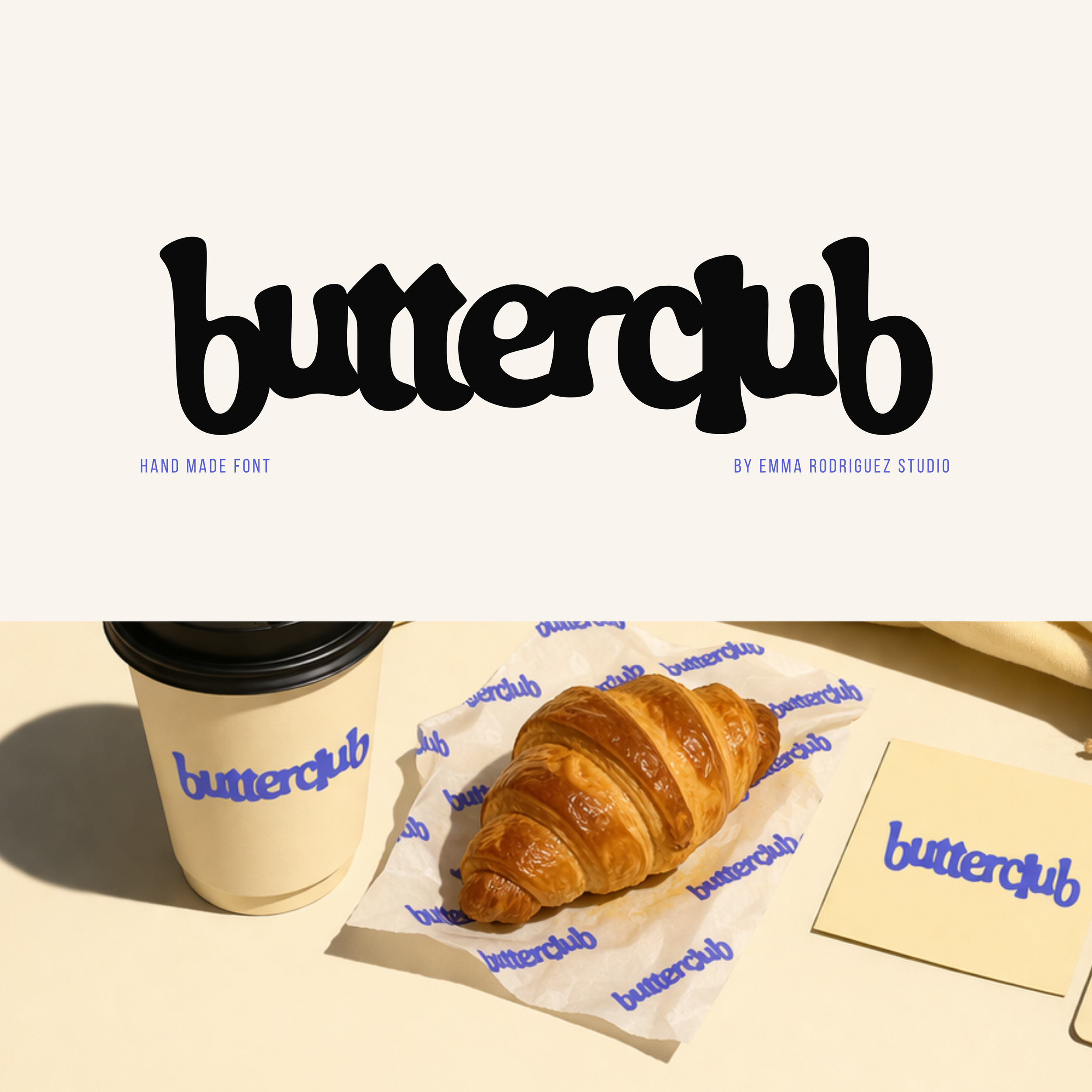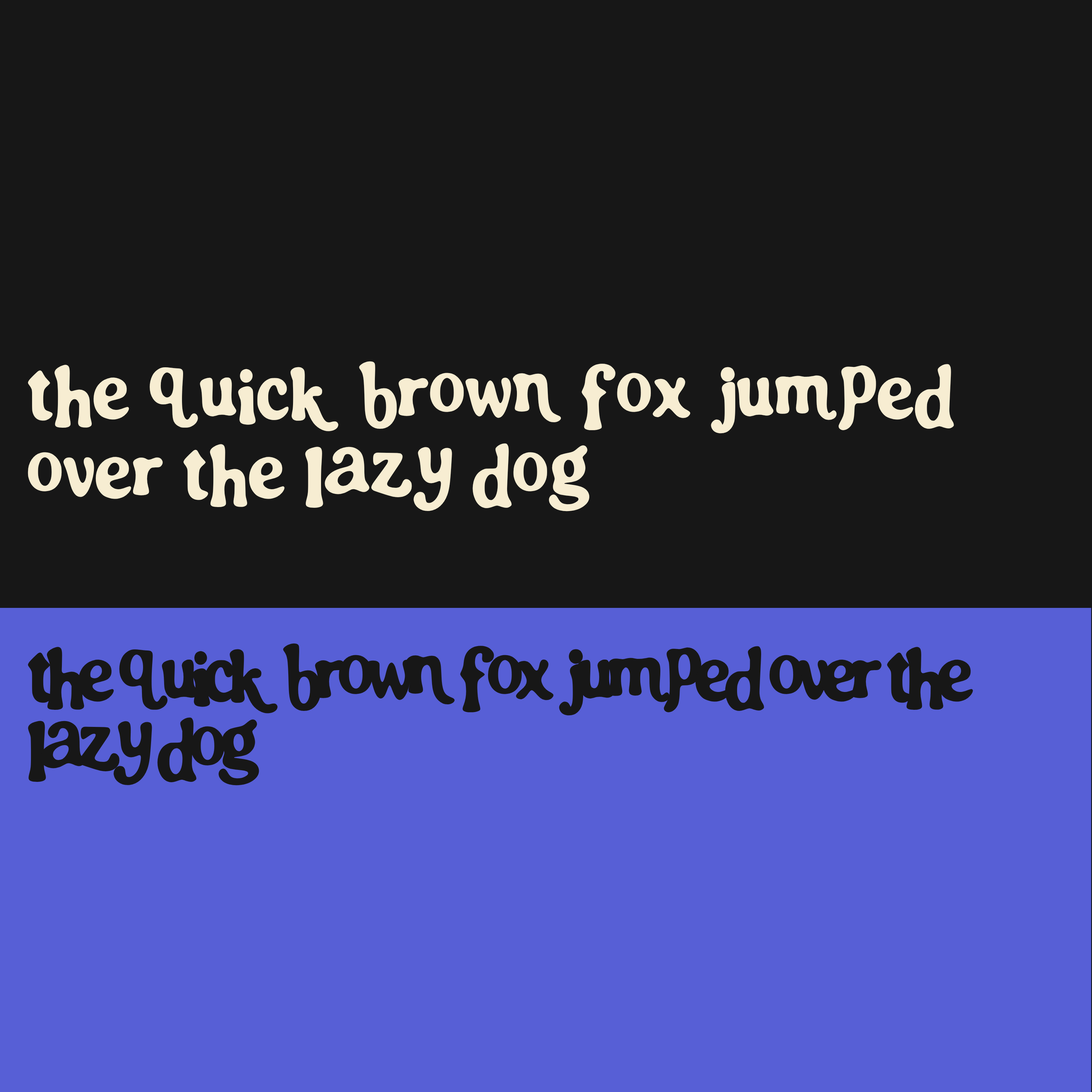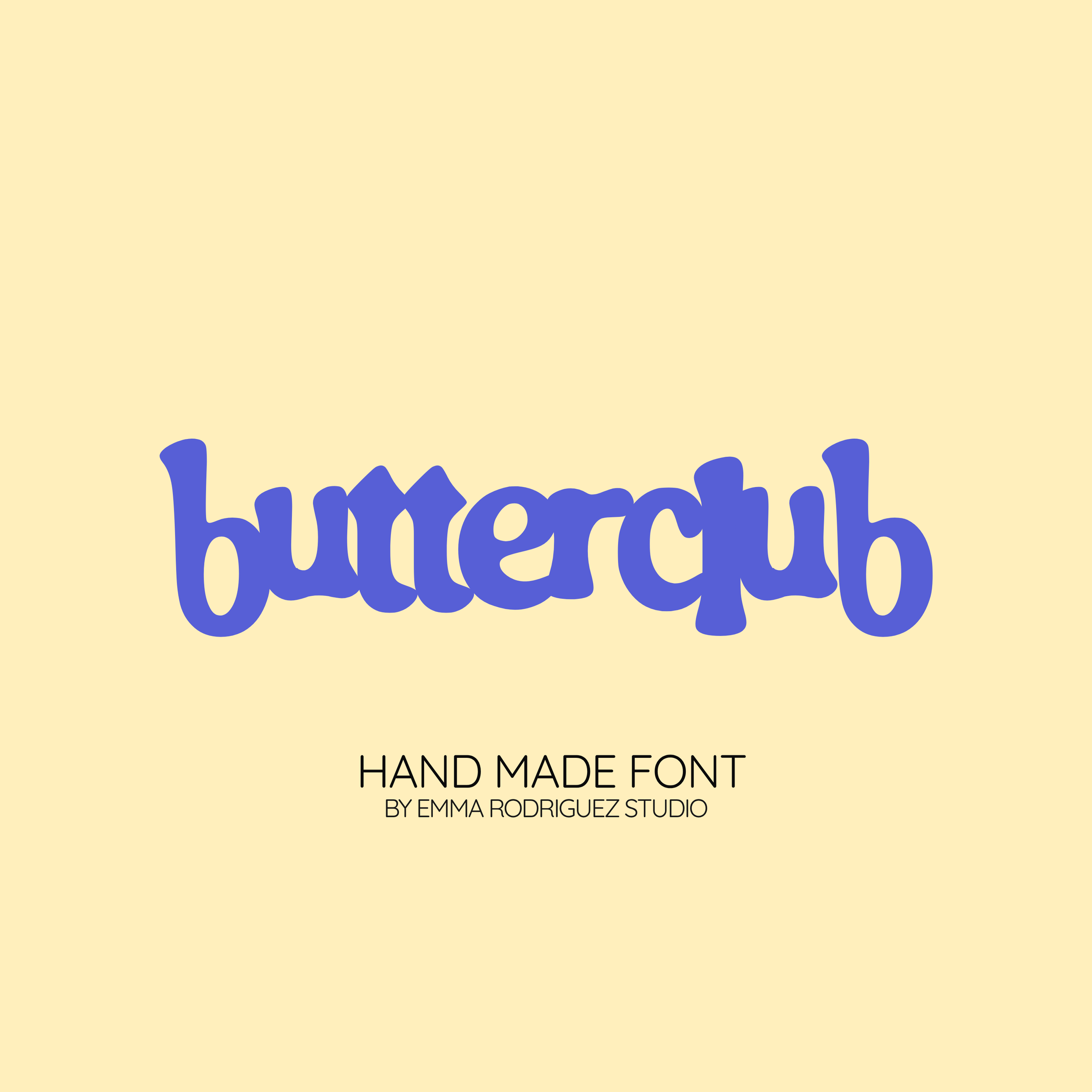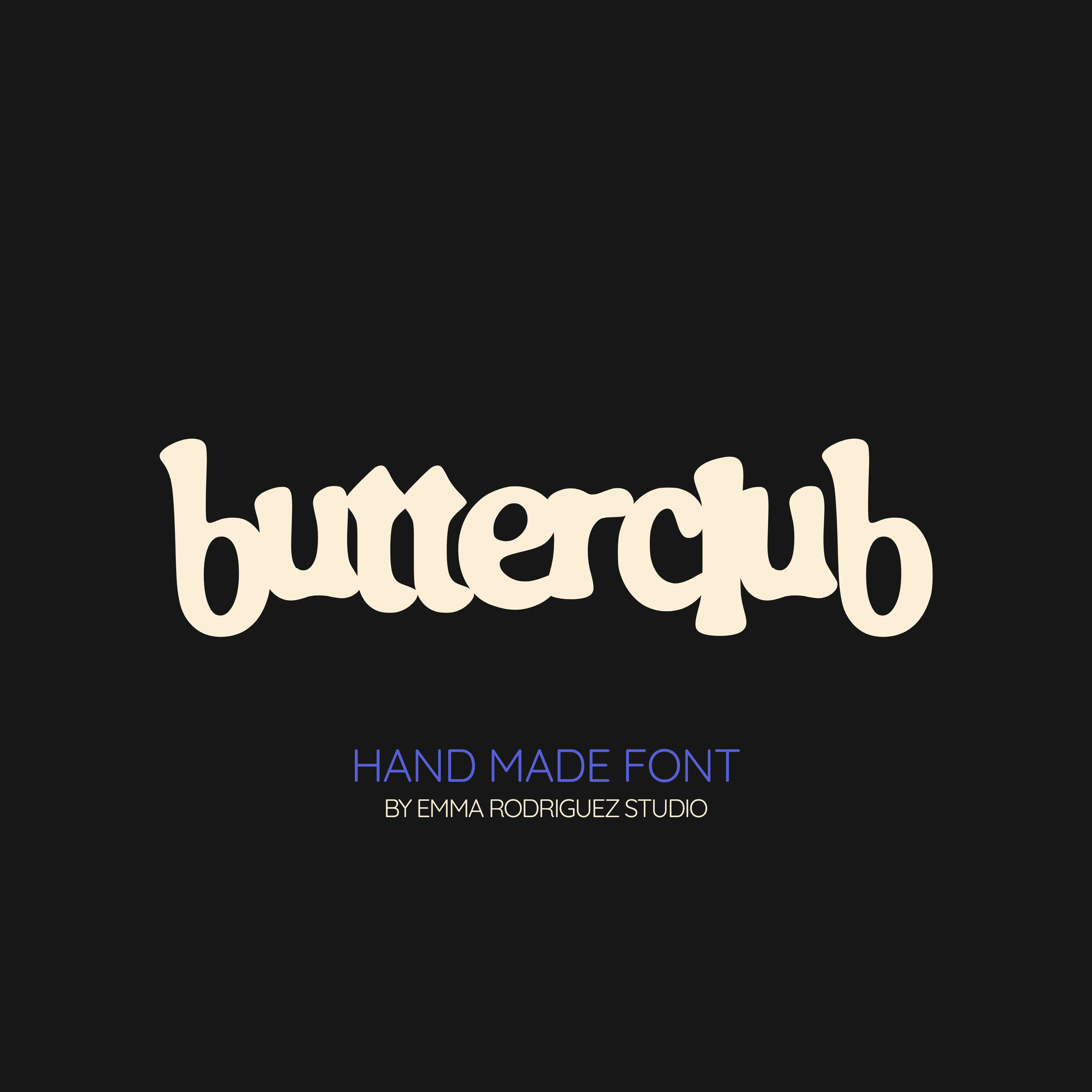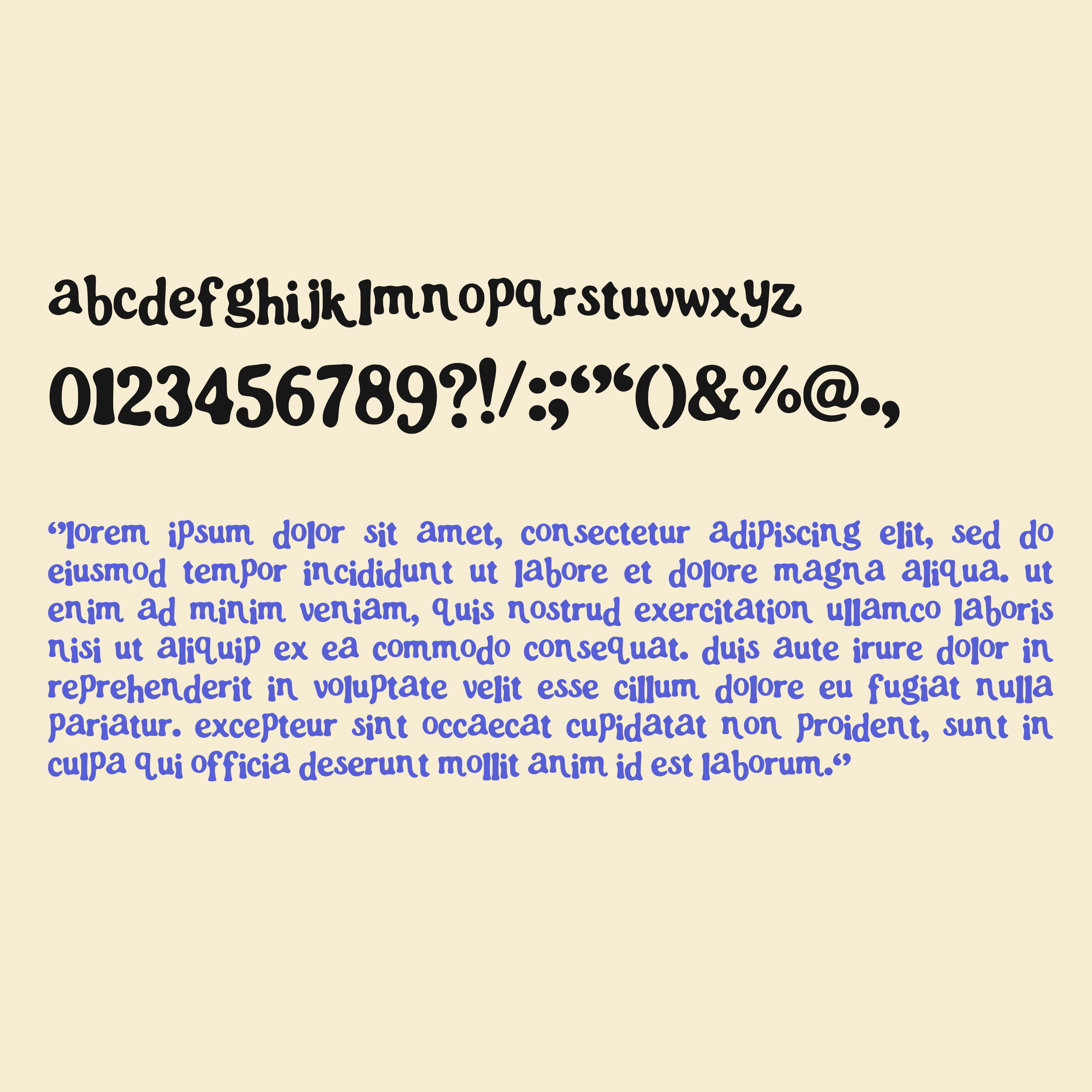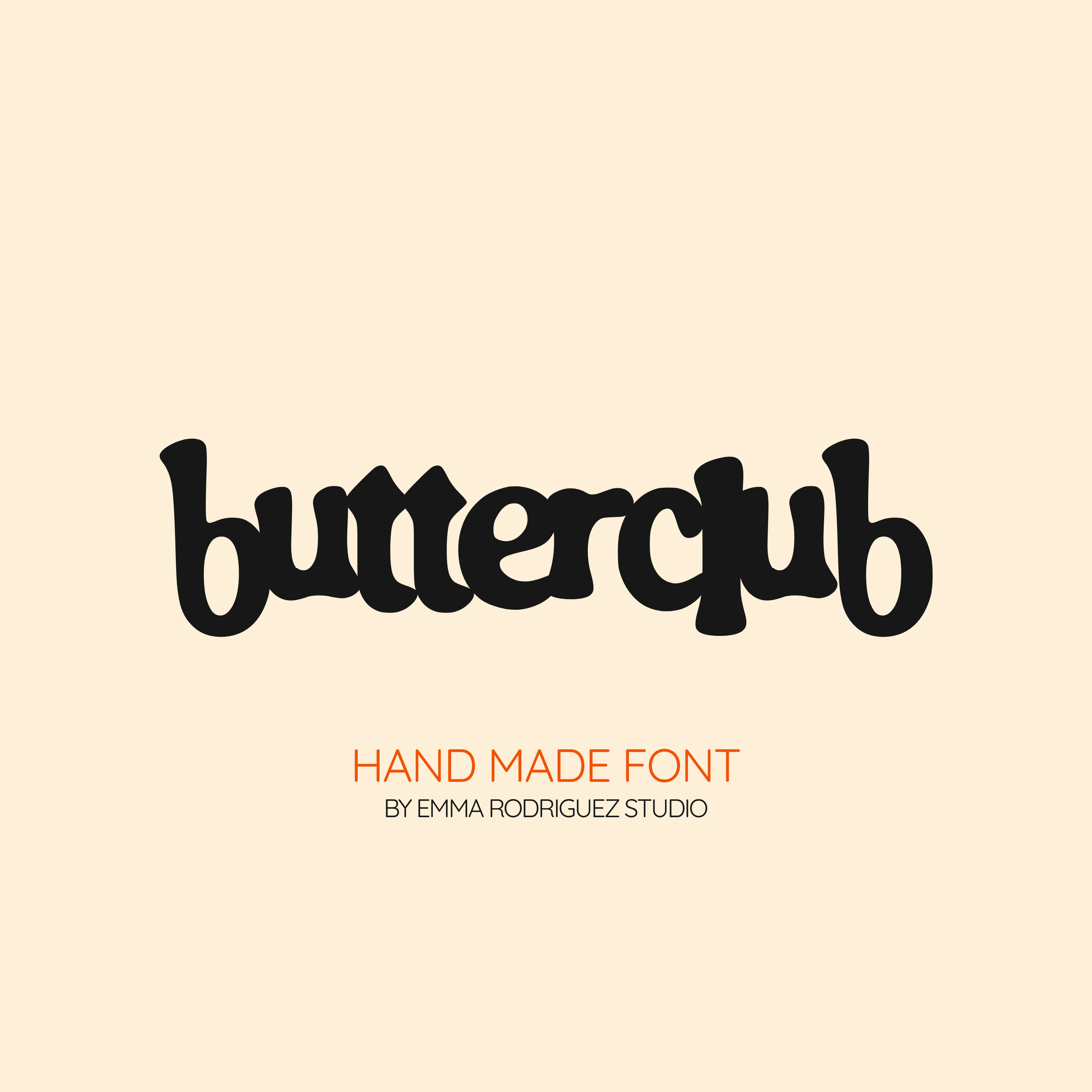
Butterclub Font - Bubbly Inky Quirky Type
Meet Butterclub, a chunky, soft edged display font that leans fully into bold, playful weight. It takes simple rounded letterforms and pushes them to their limits, creating something that feels inflated, , heavy, and slightly off balance in the best way.
Still clean. Still readable. Just thicker, rounder, and way more fun.
This lowercase typeface is built with smooth curves and a solid, almost squishy presence. The letters are intentionally unaligned, giving it a loose, bouncy rhythm that adds movement and personality across every word. Nothing is perfectly straight on purpose. That slight imbalance is what gives it its charm.
Perfect when you want something bold, friendly, and impossible to ignore.
• All lowercase letters
• Numbers and basic punctuation
Note: The unaligned baseline and uneven positioning are intentional design choices to create a more playful, organic feel.
Use it for:
• Edgy branding
• Music artwork
• Bold posters
• Zines
• Statement quotes
• Sticker designs
• Streetwear graphics
• Digital planners with attitude
Fonts by Emma Rodriguez Studio are made to have personality. Expect naive shapes, wonky details, playful imperfections and type that doesn’t take itself too seriously. They’re not designed for clean, minimal branding. They’re for bold, quirky, maximalist projects that need something a little stranger, sillier and more expressive.